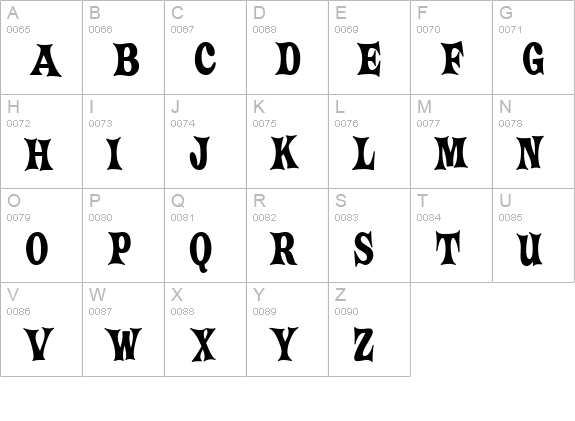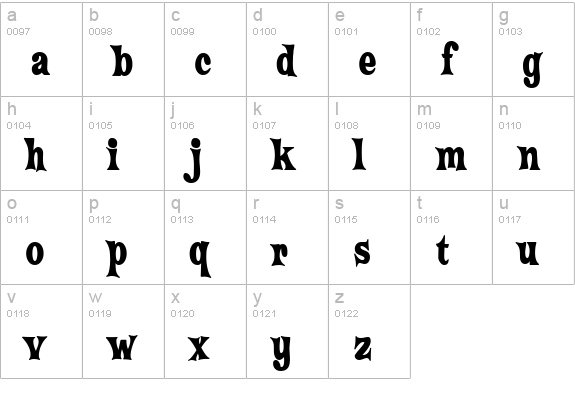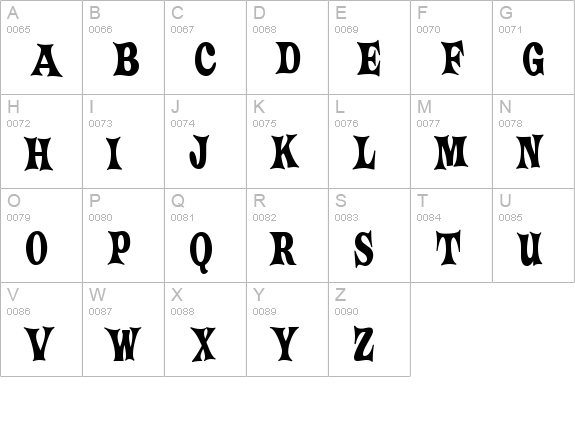
Crazy HaroldCondensed Font Details
Crazy Harold Condensed font is a playful and quirky typeface that exudes a whimsical charm. Its condensed design adds a modern touch while maintaining a sense of fun and creativity. This font is perfect for projects that need a touch of personality and character, making it ideal for headlines, logos, and branding materials. Best of all, Crazy Harold Condensed font is available for free download at FontsMarket.com. Don't miss out on adding this unique and eye-catching font to your collection today!